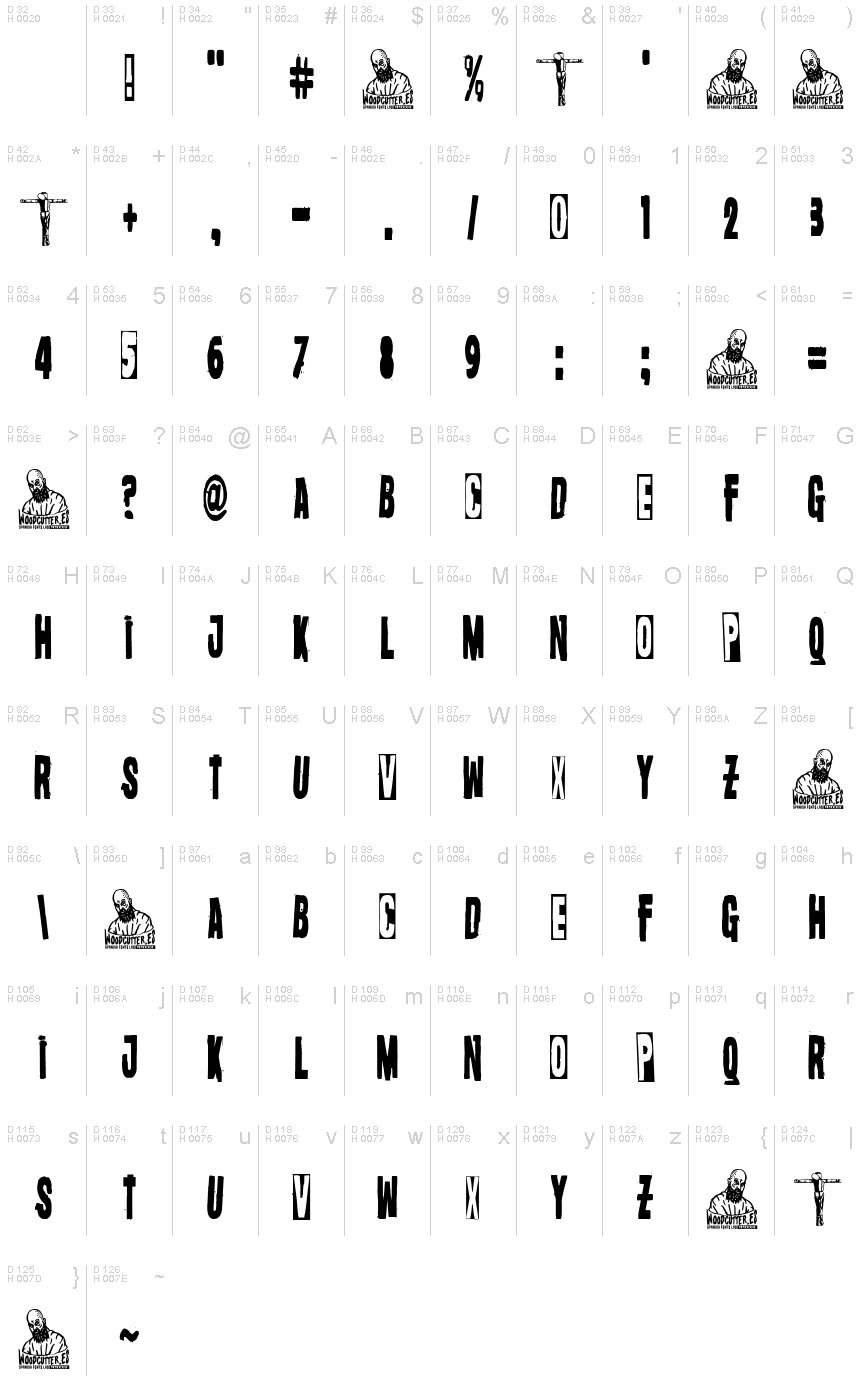
Vorschau der Schriftart Oi! Survive Poster
The Oi! Survive Poster font, designed by Woodcutter, exudes a bold and distorted aesthetic, capturing a sense of resilience and defiance. Its condensed width and negative style create a striking visual impact, making it an eye-catching choice for attention-grabbing designs. The font's distinctive letterforms and commanding presence evoke a sense of determination, perfectly suited for posters, branding, and any project requiring a strong, impactful typographic treatment.
This versatile font can elevate a wide range of design projects, from punk-inspired album covers to gritty signage and edgy event promotions. Its bold, condensed structure lends itself well to bold headlines, while the distorted, negative style adds an edge that can energize packaging, editorial layouts, and more. The Oi! Survive Poster font by Woodcutter is a powerful typographic tool for designers seeking to make a lasting impression.